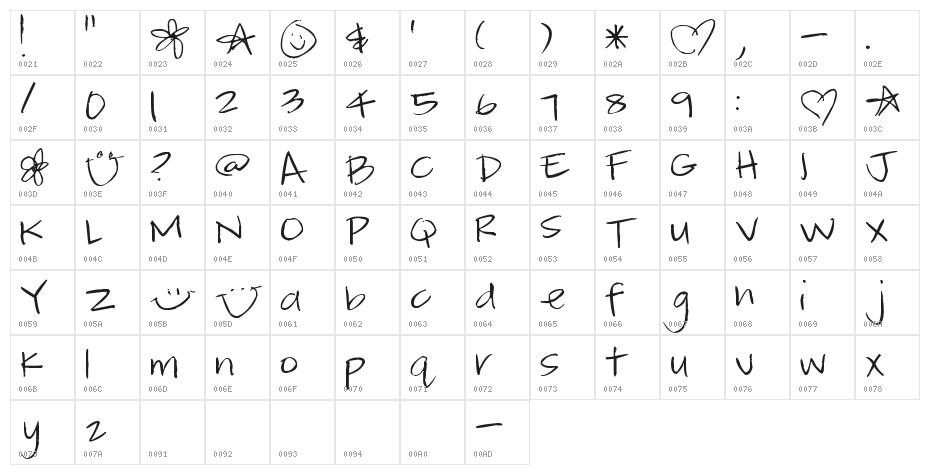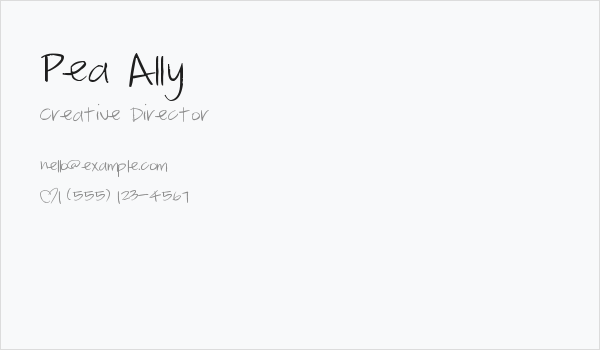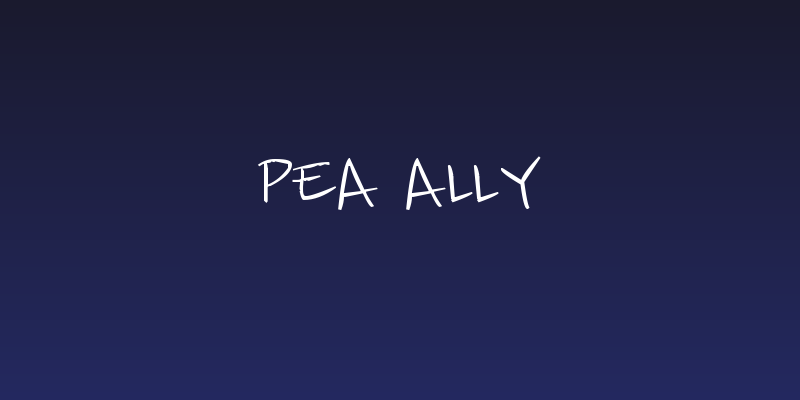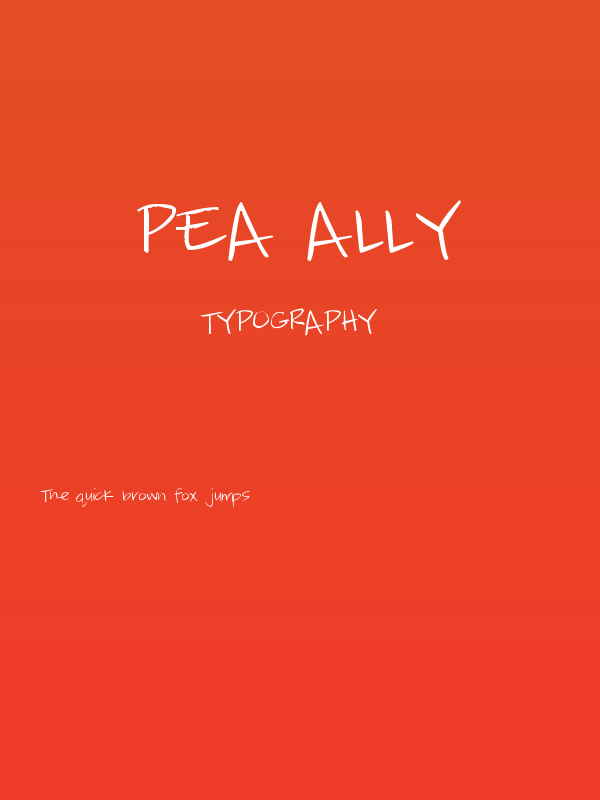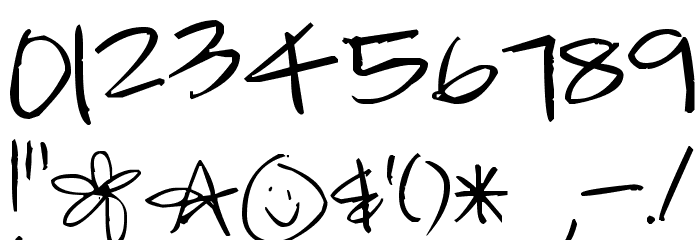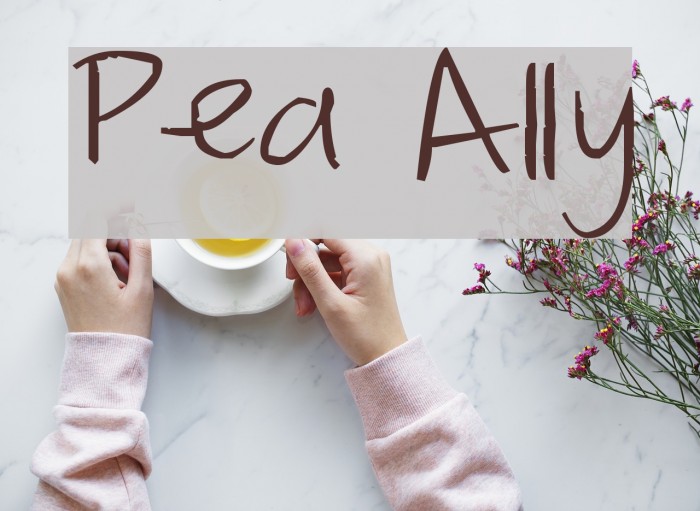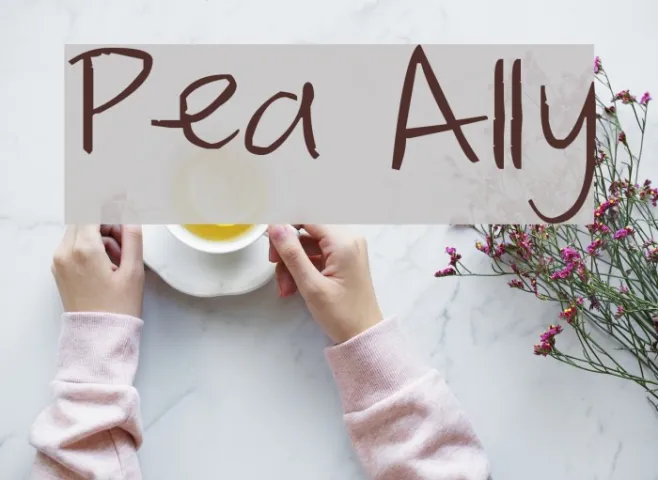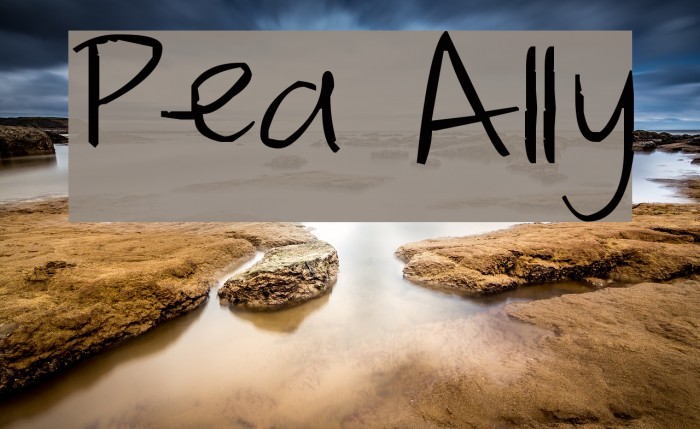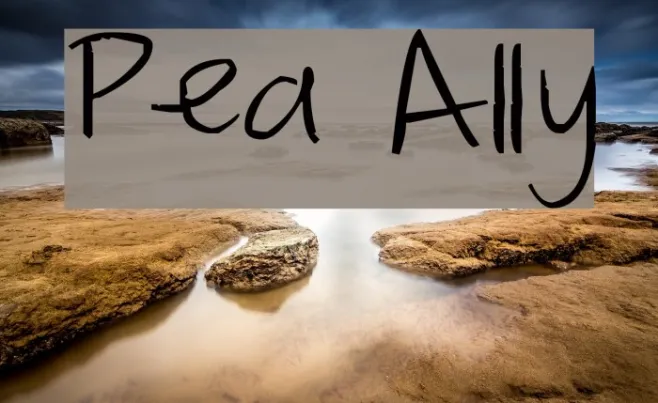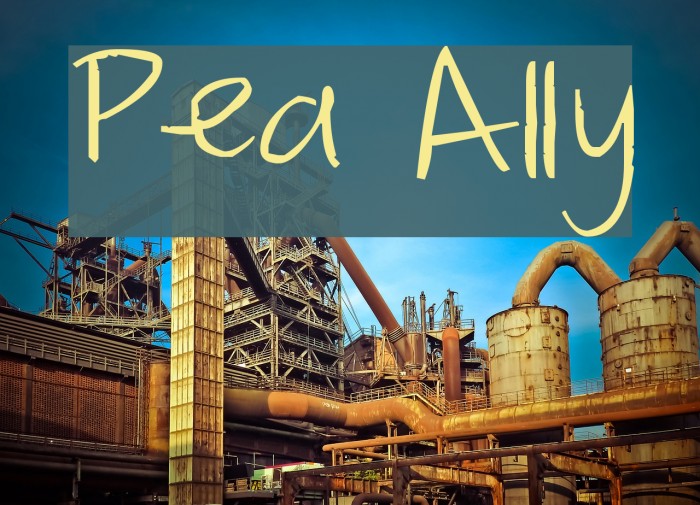
Pea Ally Font
Pea Ally Description
This font features a playful and casual handwritten style, characterized by its uneven strokes and slightly tilted letters. The uppercase and lowercase letters exhibit a consistent flow, with a natural and spontaneous appearance. The numbers and special characters maintain the same lively and informal aesthetic, making them suitable for creative and informal projects. The overall look is approachable and friendly, with a touch of whimsy that adds personality to any design.
| Overall Style | Casual, Playful |
| Use Case | Headlines, Informal text, Creative projects |
| Proposed Projects | Ideal for greeting cards, personal notes, children's books, and playful branding projects. |